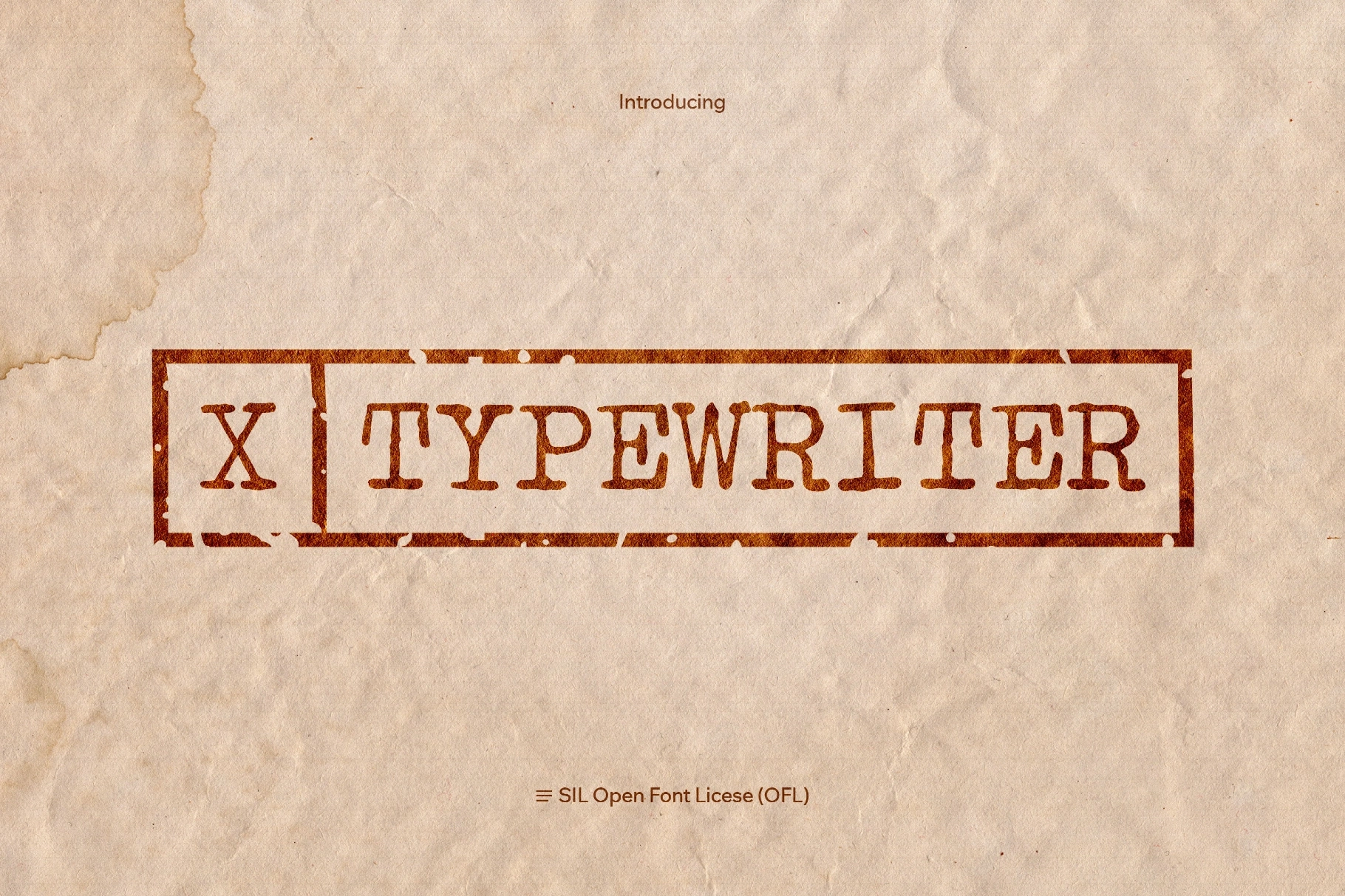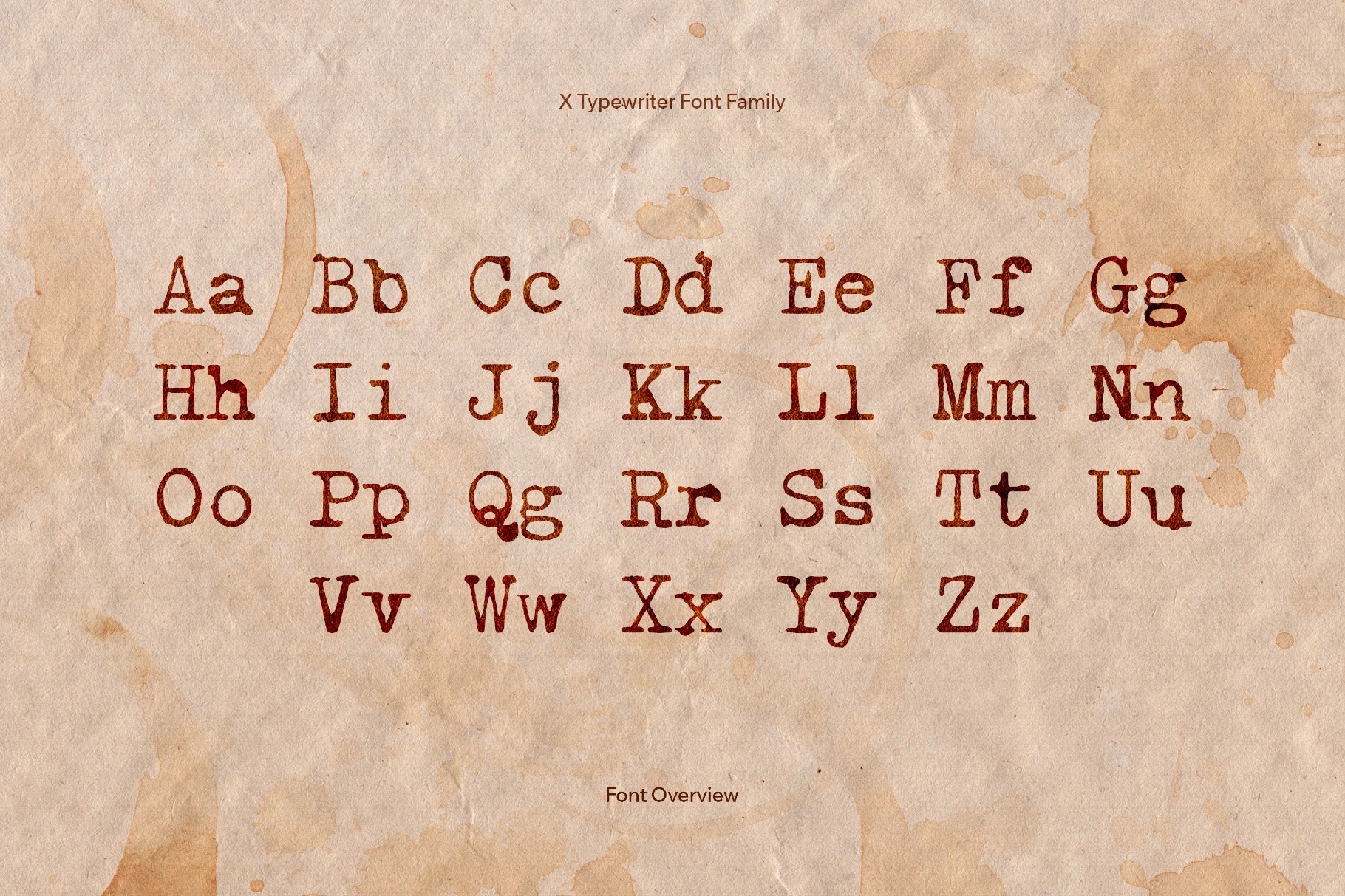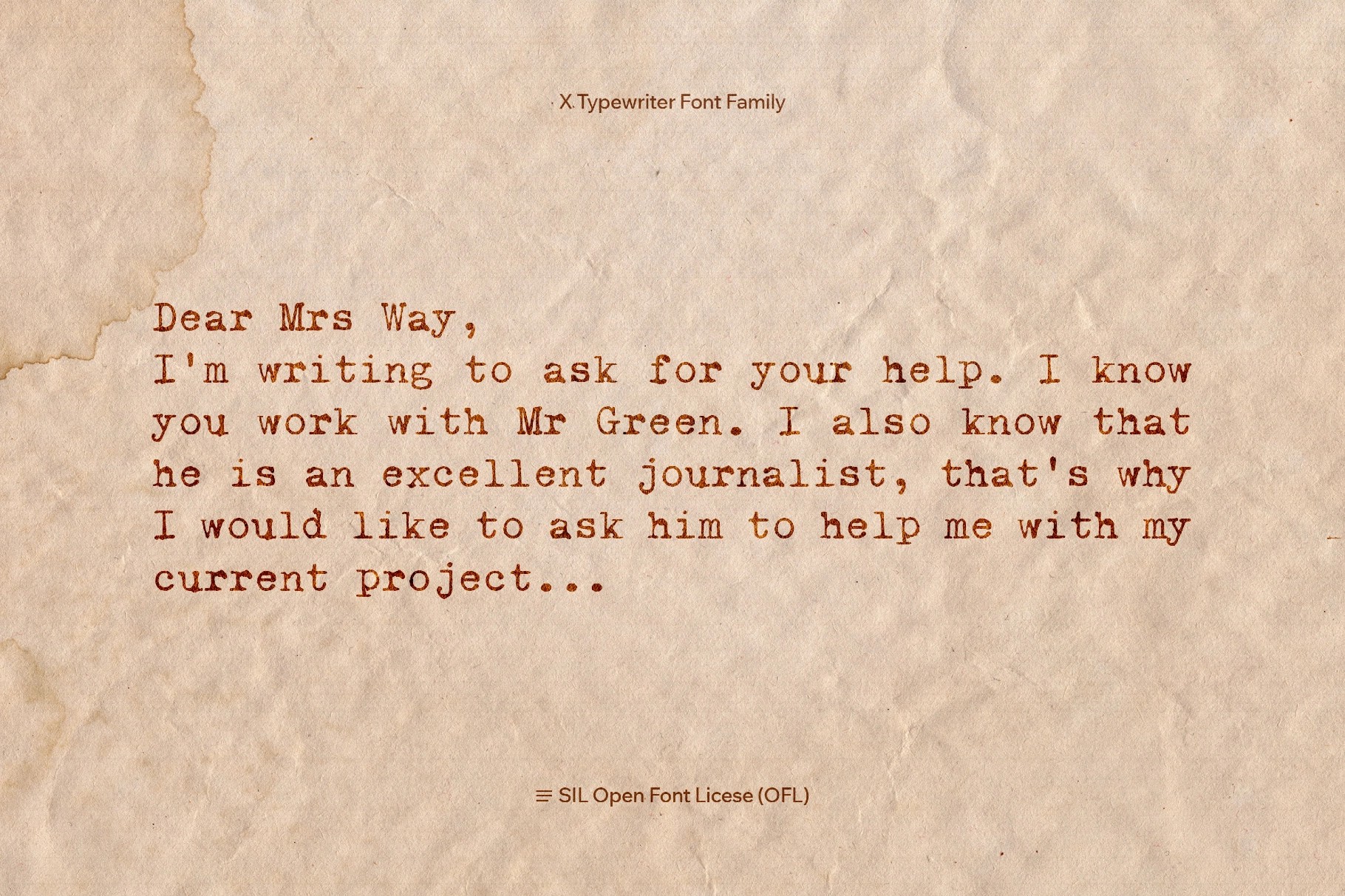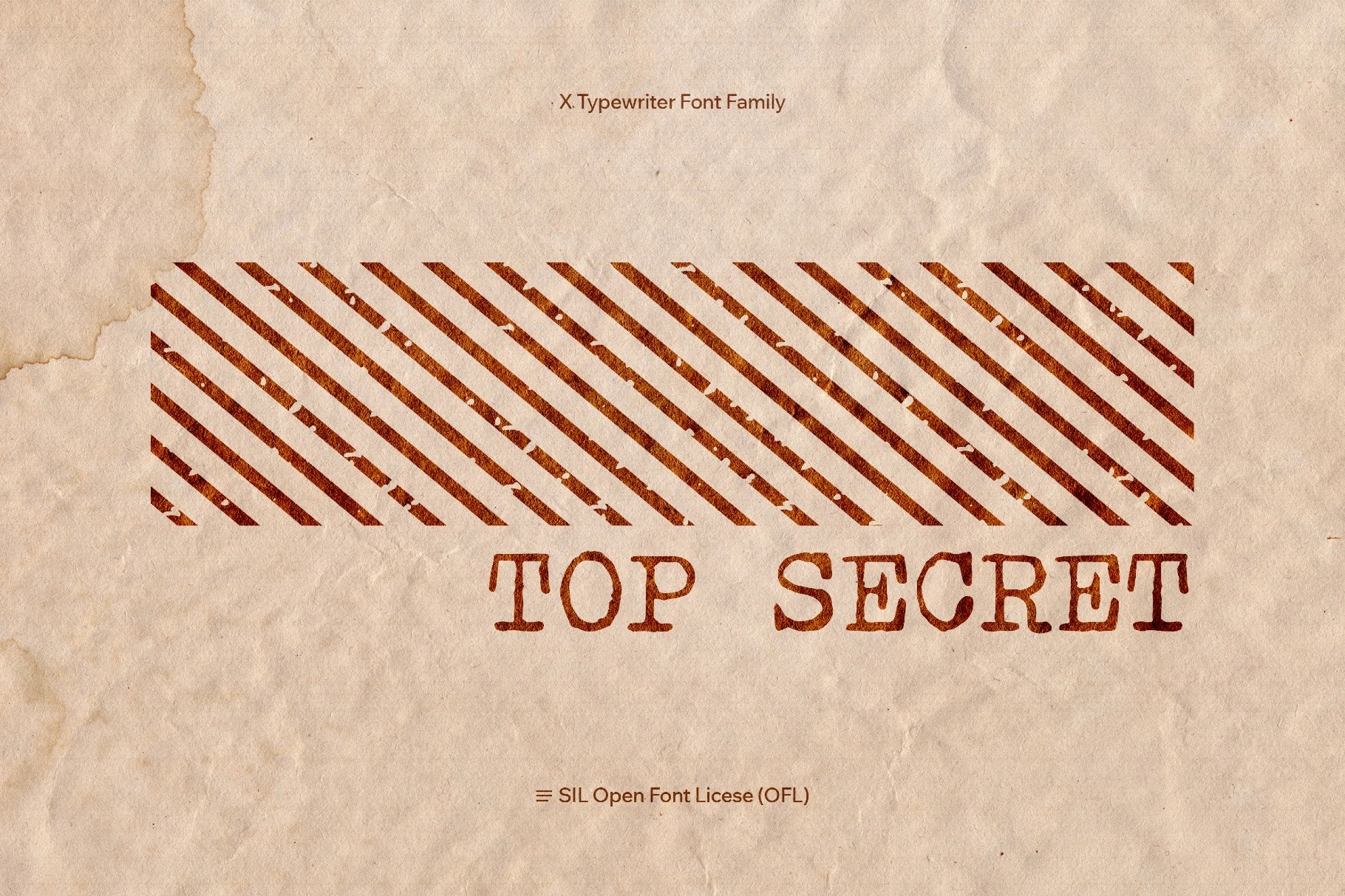
X Typewriter Font Family
X Typewriter font family channels the dry mechanical charm of classic office machines. It is a crisp serif with faithful monospaced rhythm and ink chatter. The glyphs go deliberate and boxy, with the lowercase running slightly irregulary. The bold cut keeps the dry, archival character.
The family fits scripts and manuscripts, editorial sidebars, zines and artist books, dossiers and case files, mailers and shipping labels, portfolio captions, retro UI mockups, product stickers and rubber-stamp marks, coffee or stationery packaging, museum guides, and archival documents, and more.